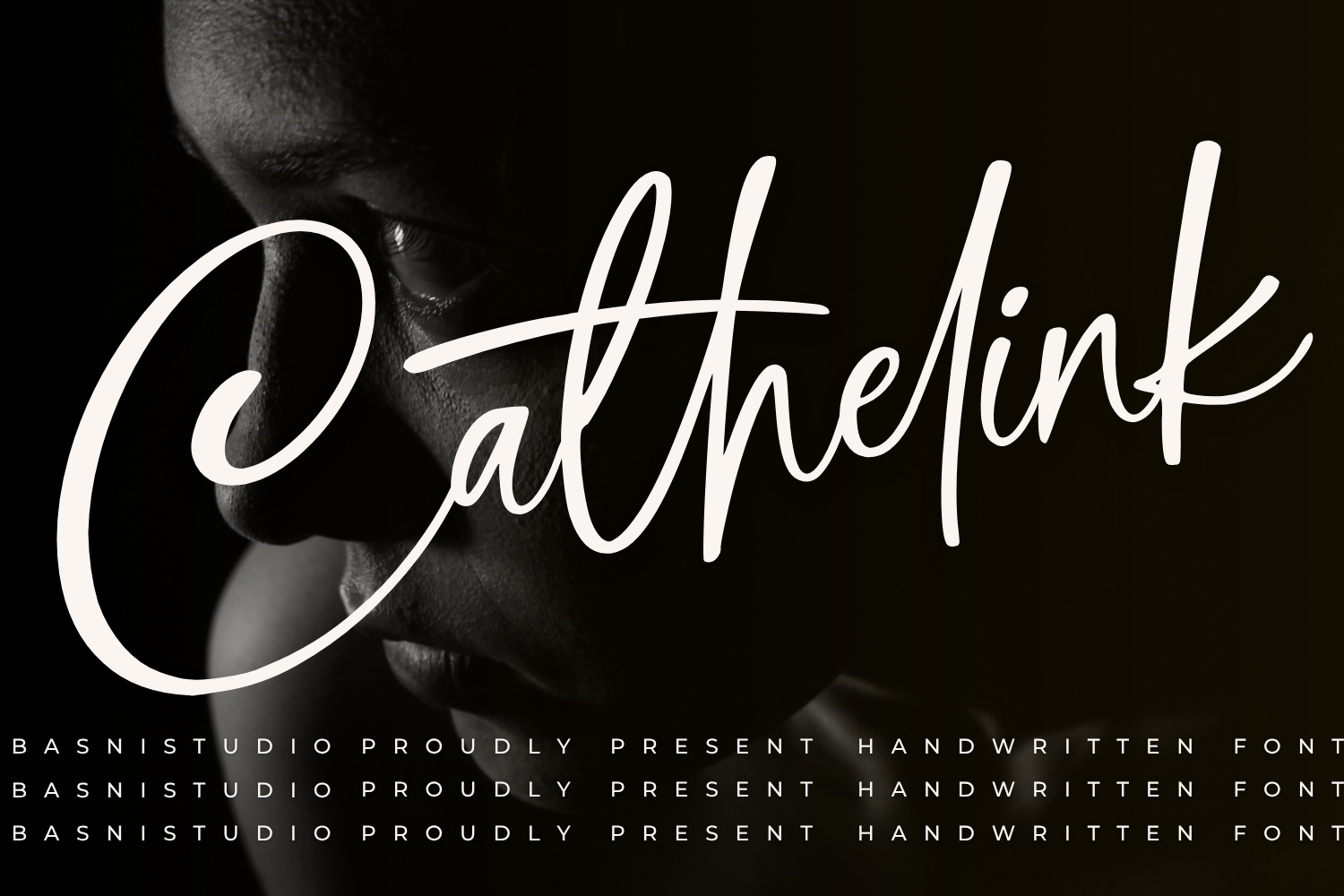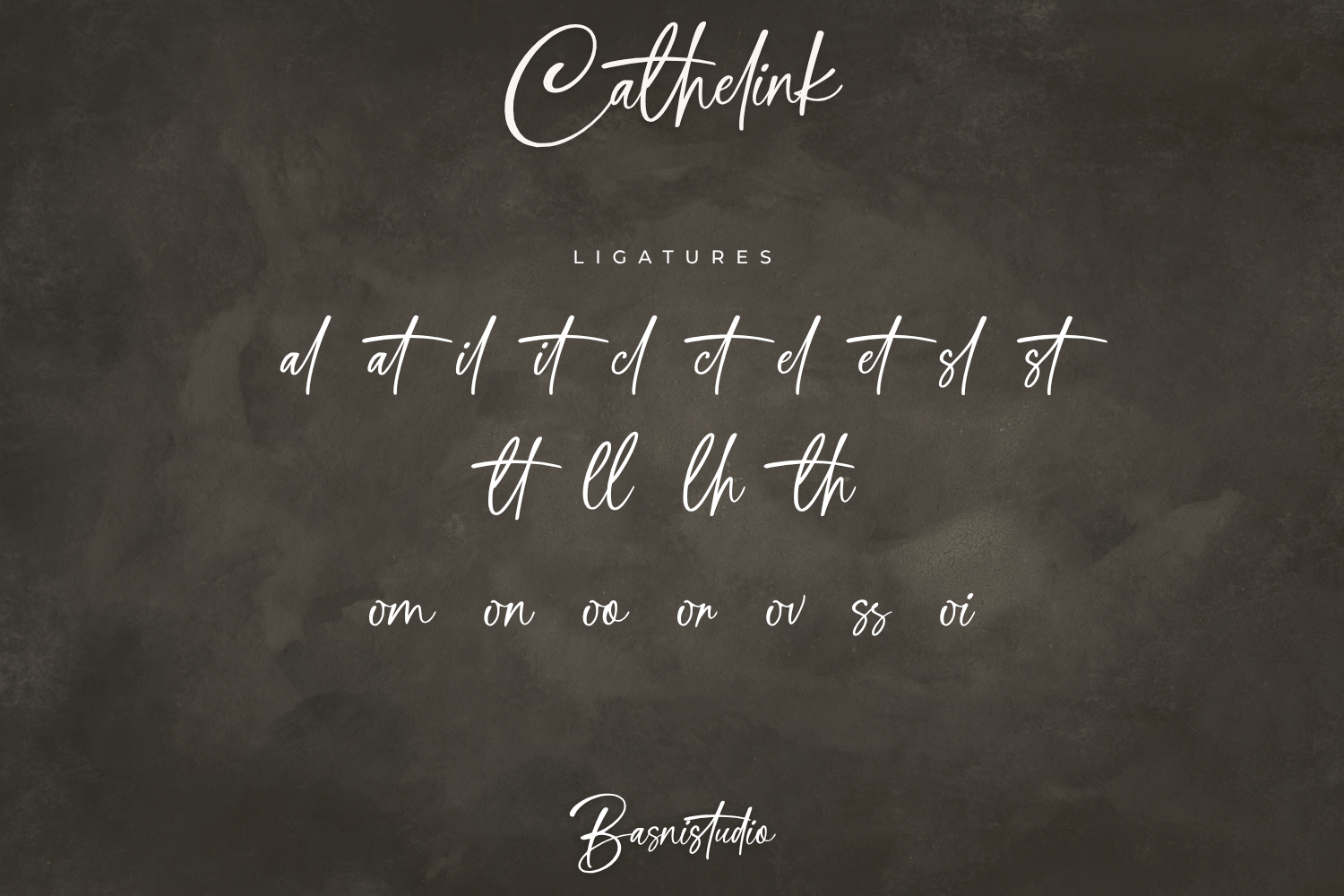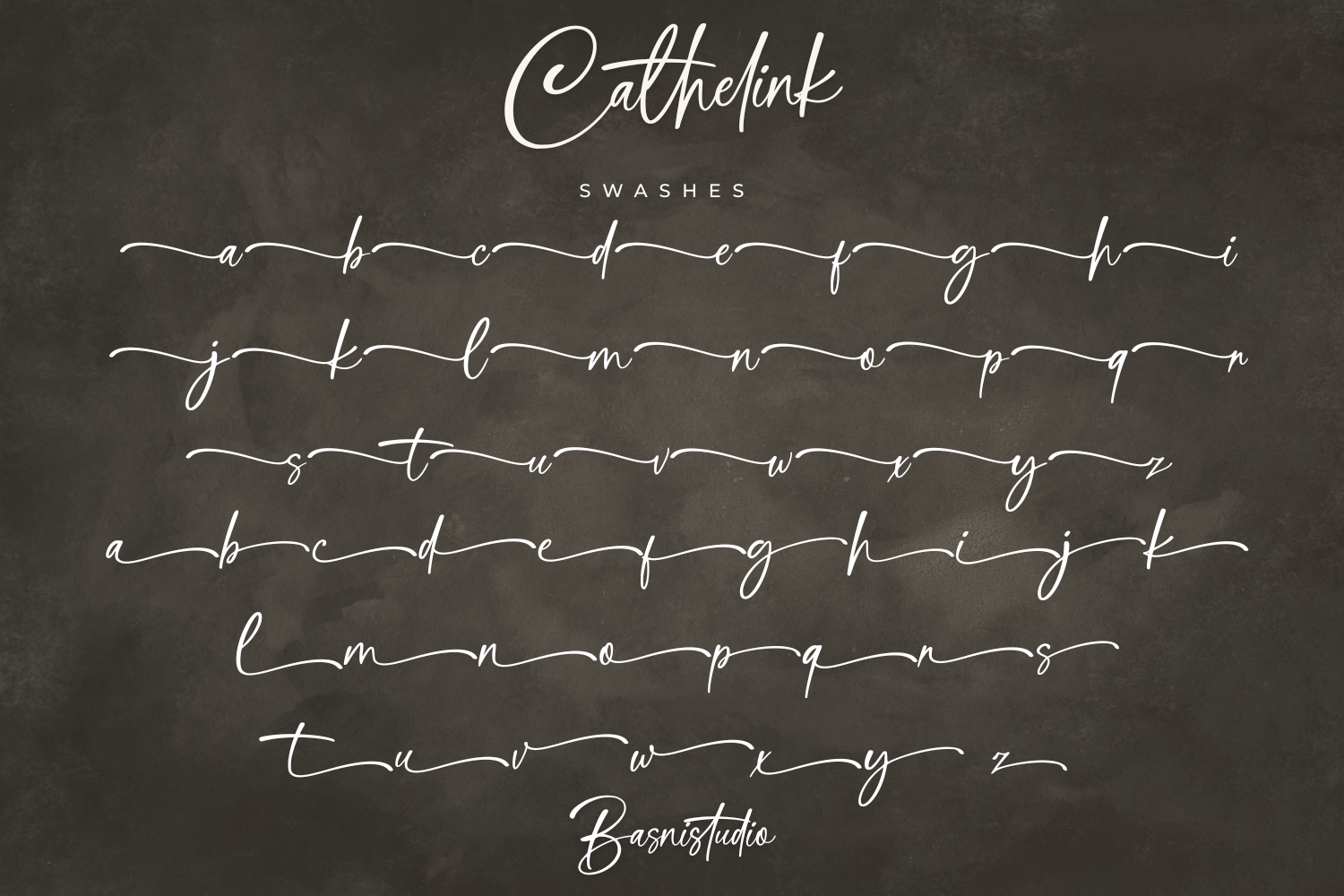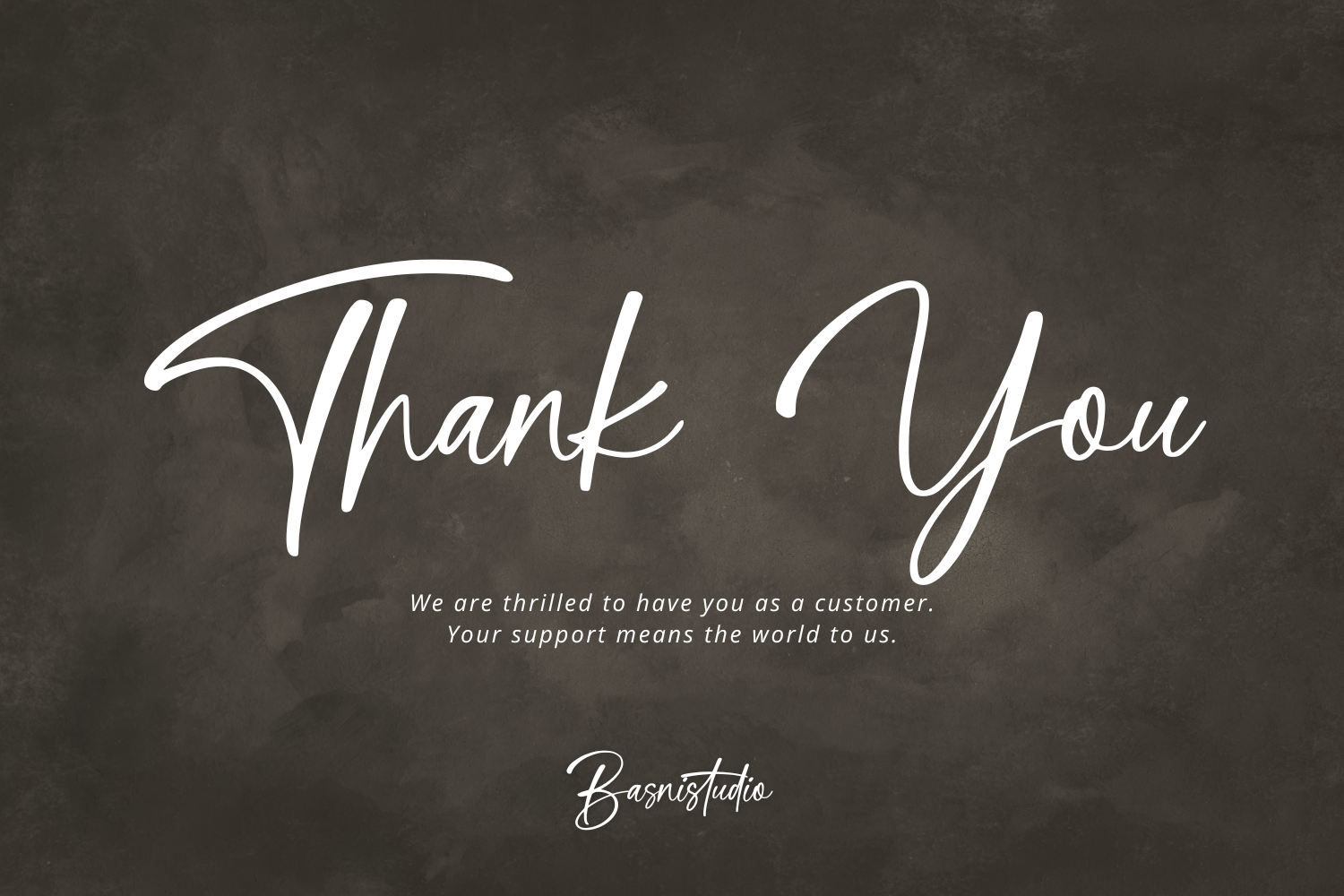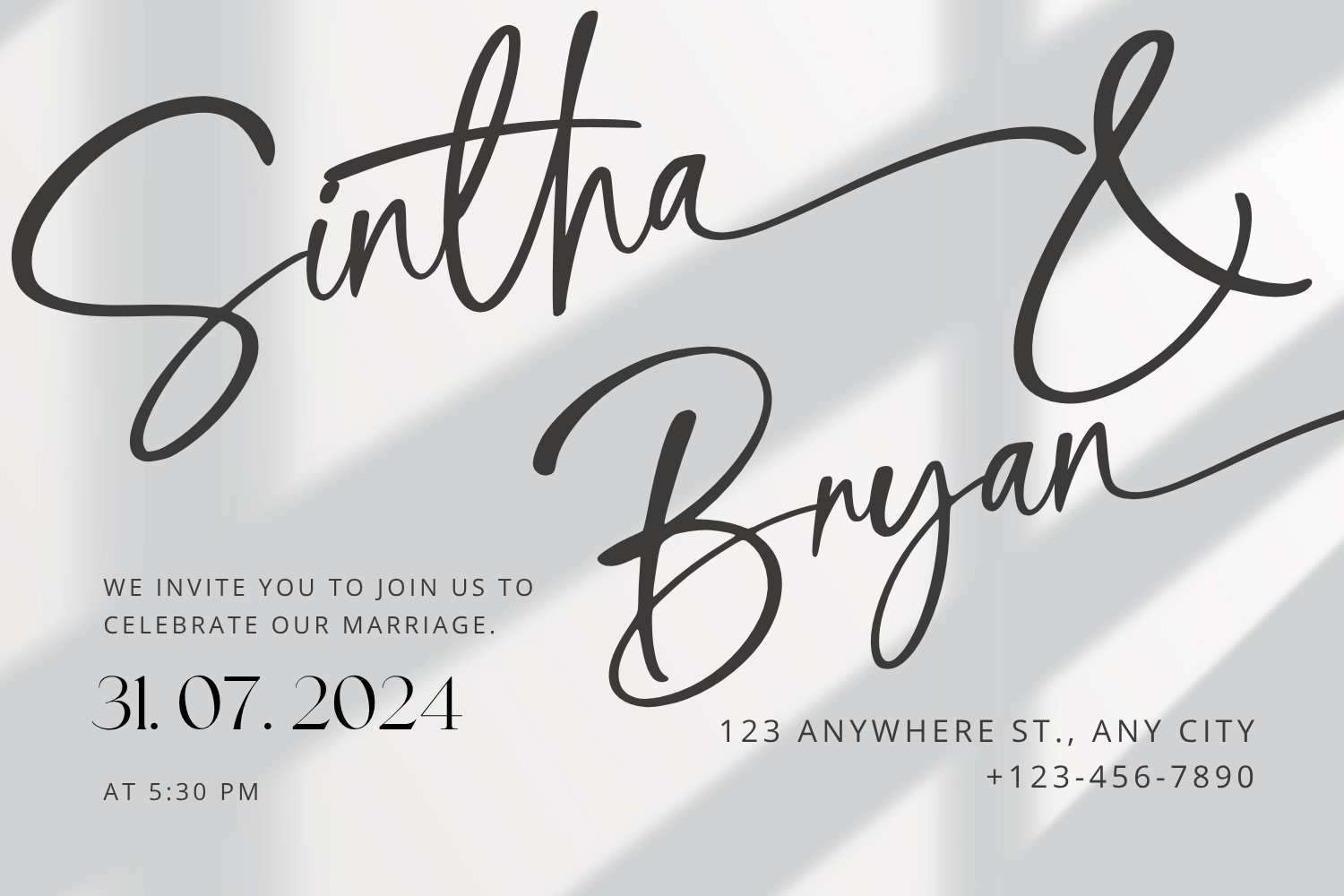
The Perfect Handwritten Touch for Your Designs
Introducing Cathelink a Handwritten Font that adds a elegant, versatile touch to everything from branding and social media to invitations and packaging.
Elegant & Versatile – Perfect for logos, quotes, greeting cards, and more
Authentic Handwritten Feel – Created with real pen strokes for a natural look
Whether you’re building a powerful brand identity or crafting a standout logo, Cathelink
gives you the creative edge you need.
• Uppercase & lowercase letters
• Ligature
• Swashes
• Multilingual Support ( Support for 90 languages )